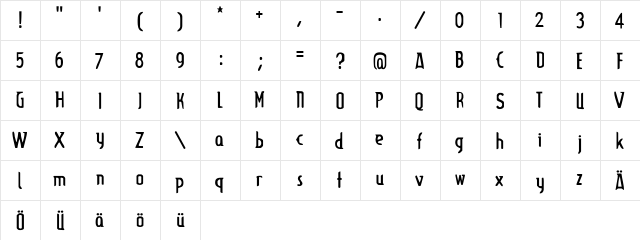
Lupinus Regular
Design Context for Lupinus Typeface
Lupinus takes a measured approach to typography — its balanced proportions and neutral character make it a reliable workhorse for both digital and print work.